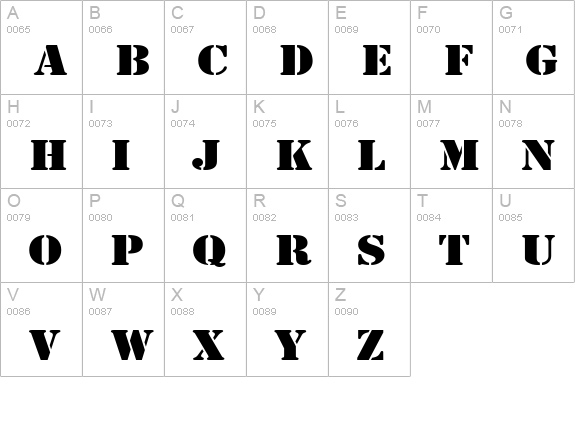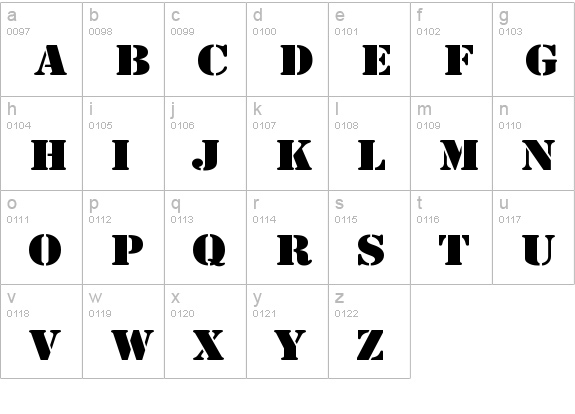
GI StencilExtended Normal Font Details
GI StencilExtended Normal is the standard, neutral variant in the GI typeface family \xE2\x80\x94 well suited to general body text, paragraphs, and standard typographic work.
The GI StencilExtended Normal font is a versatile and modern typeface that is perfect for adding a touch of edgy flair to your designs. With its bold and clean lines, this font is ideal for making a statement in headlines, logos, posters, and more. The stencil design adds a unique touch, making it stand out from other fonts. Best of all, the GI StencilExtended Normal font is available for free download at FontsMarket.com. This means you can easily add this stylish font to your collection without any cost. Whether you're a professional designer or a hobbyist looking to enhance your projects, this font is a great choice for adding a contemporary and eye-catching element to your work. Don't miss out on the opportunity to enhance your designs with this fantastic font - download it for free today!